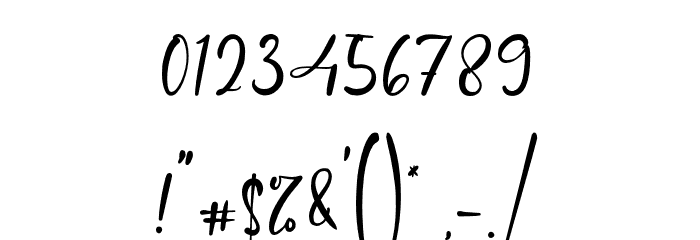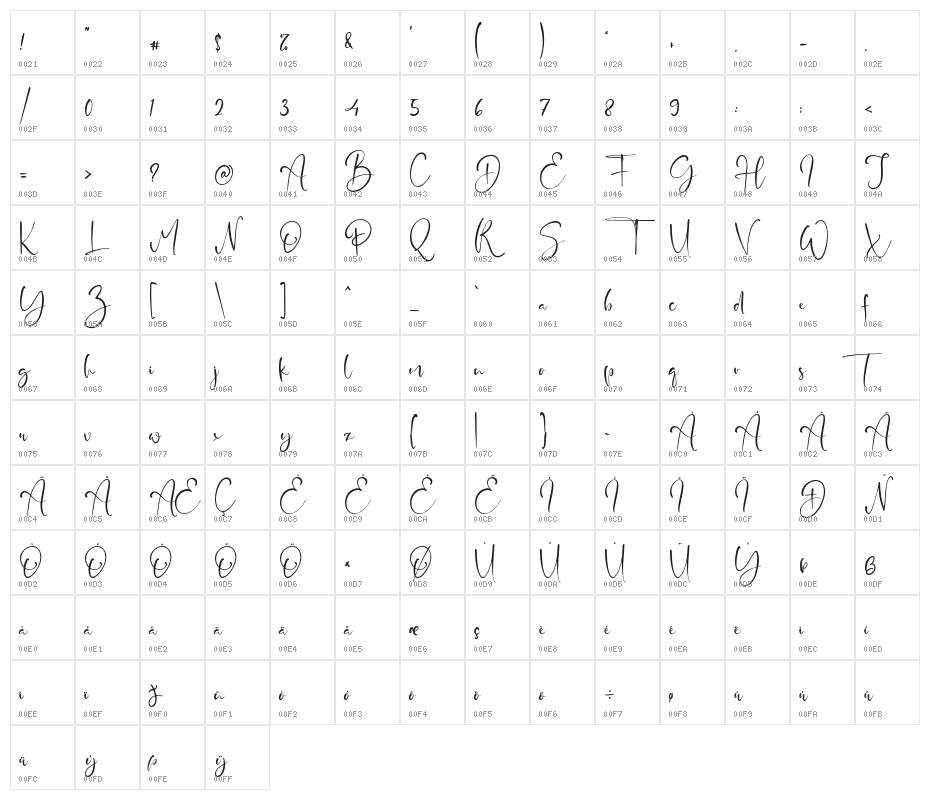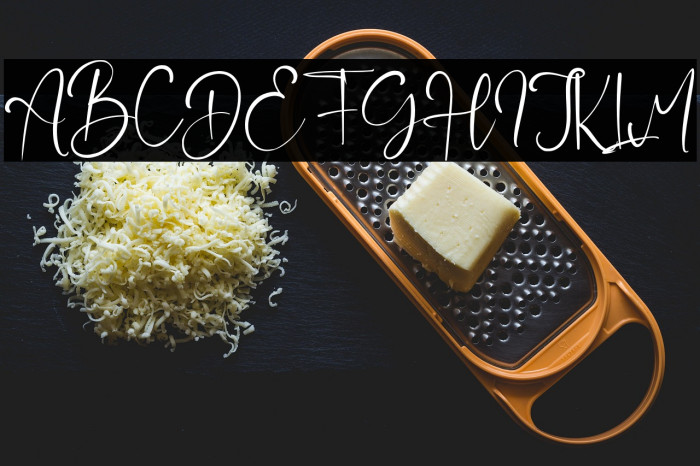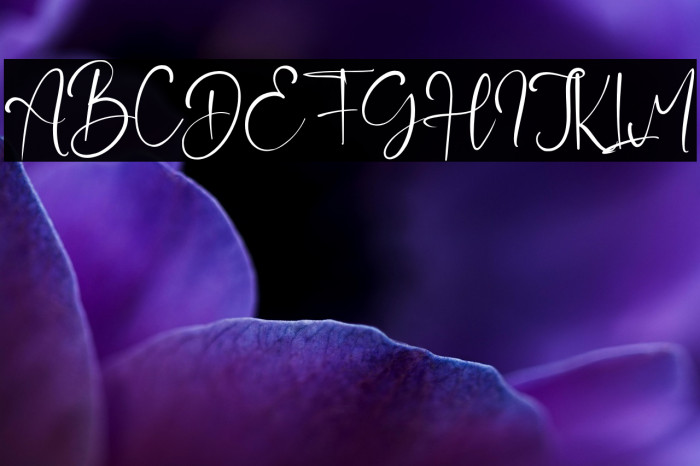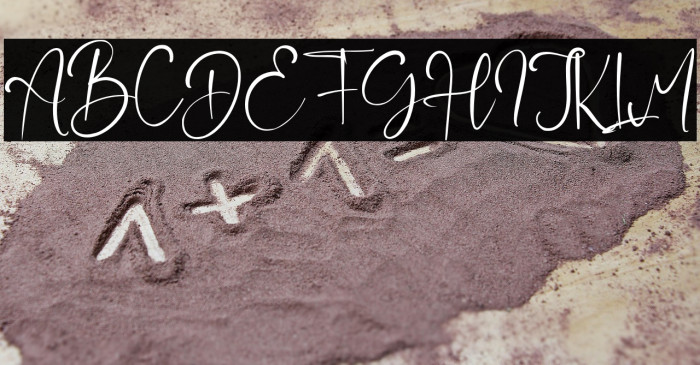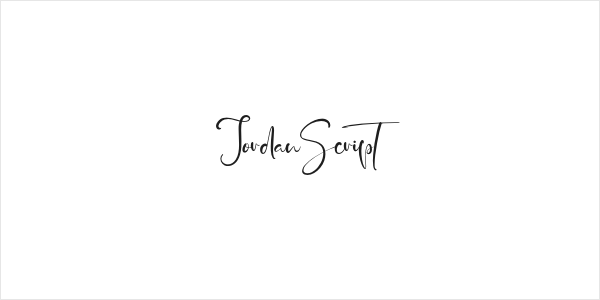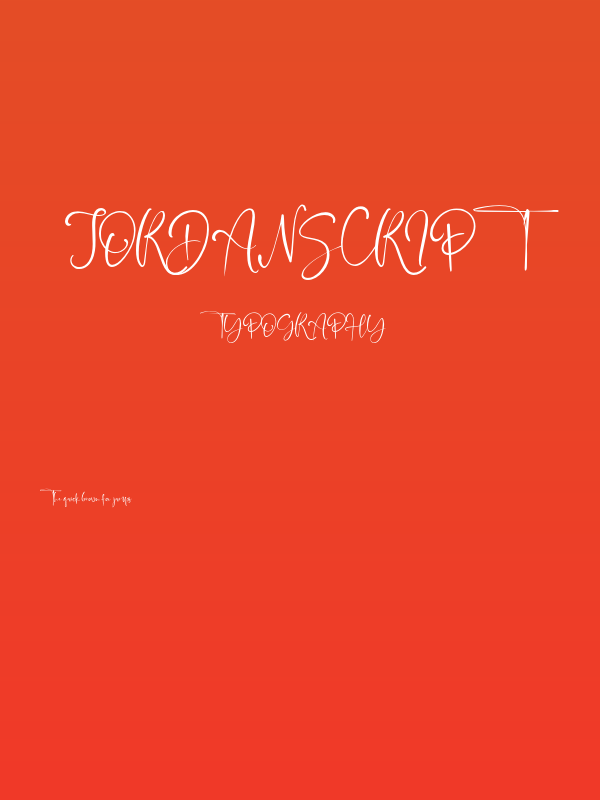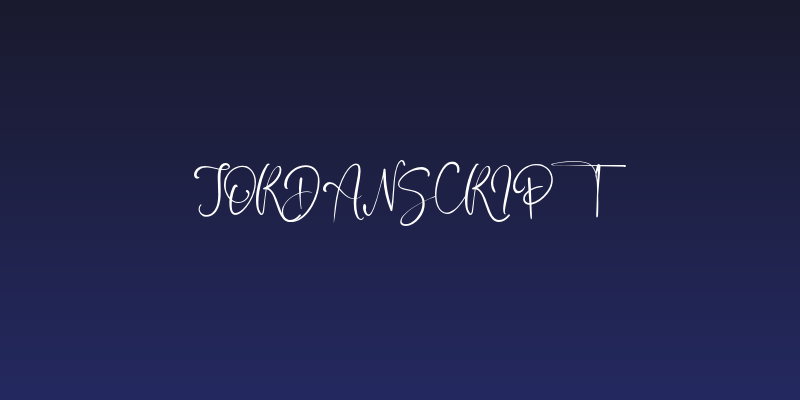
JordanScript Font
JordanScript Description
This script font exudes a lively and expressive character, with its flowing, handwritten style that captures a sense of movement and elegance. The uppercase letters are tall and slender, with distinctive loops and swirls that add a touch of sophistication. The lowercase letters maintain a consistent fluidity, enhancing the font's overall cohesiveness. Numbers and special characters are crafted with the same attention to detail, ensuring versatility across various applications. The font's playful yet refined nature makes it suitable for creative projects that require a personal touch.